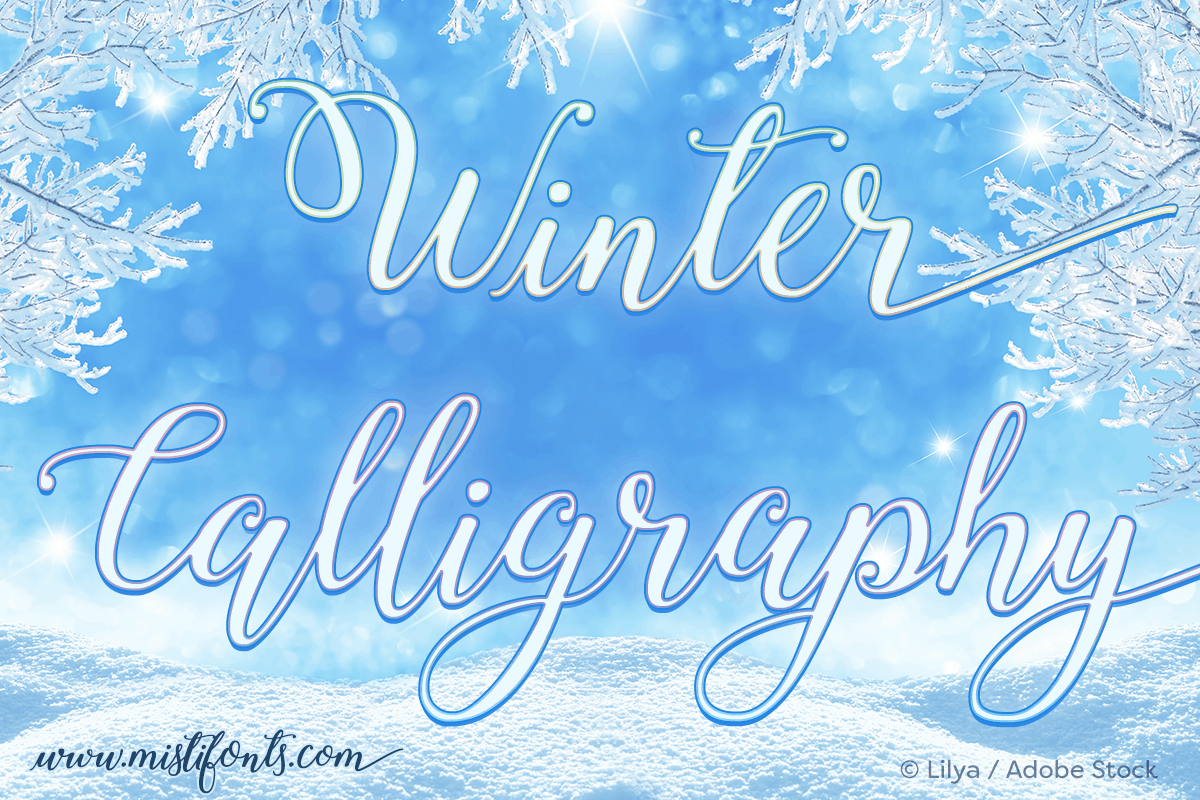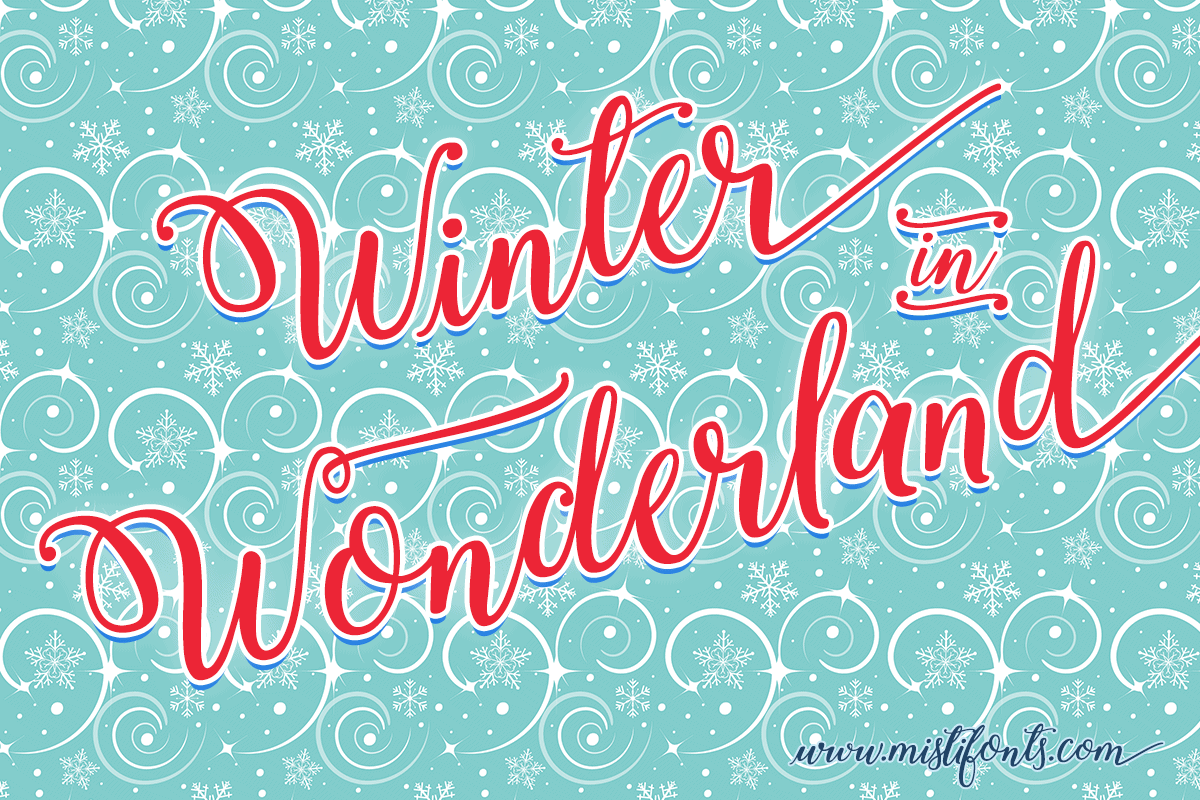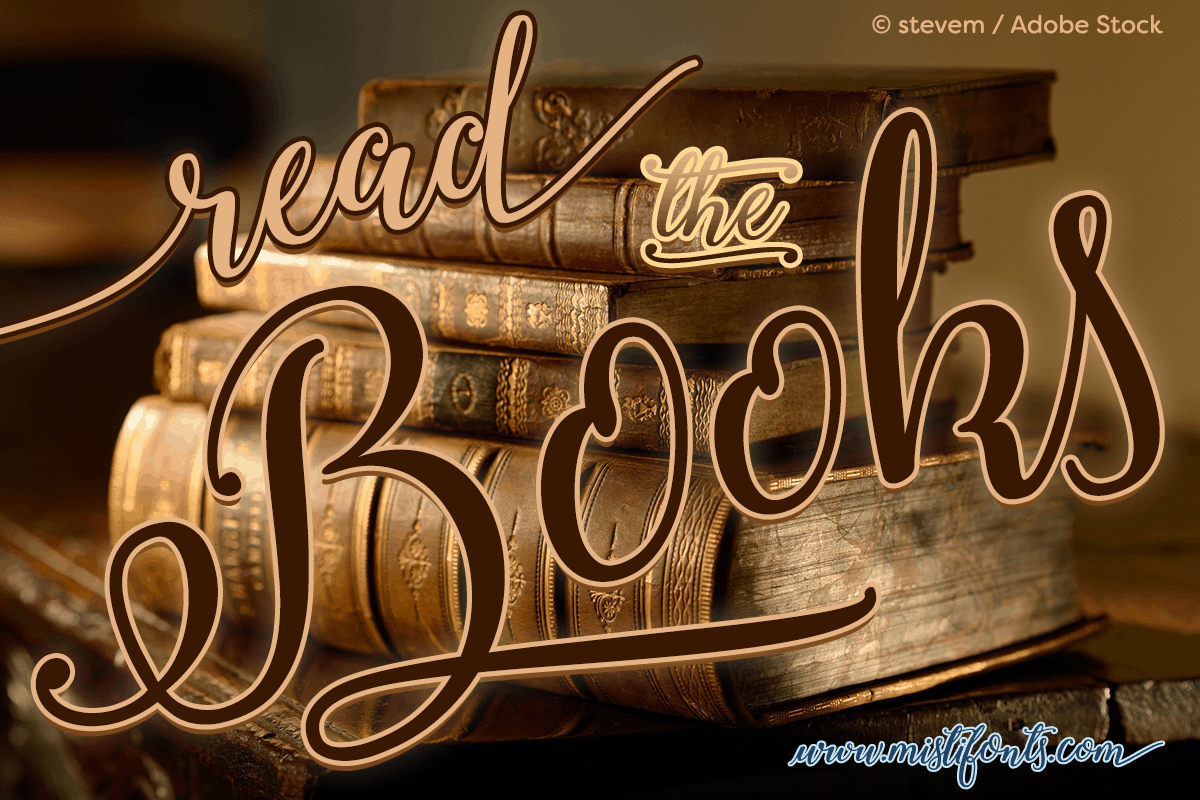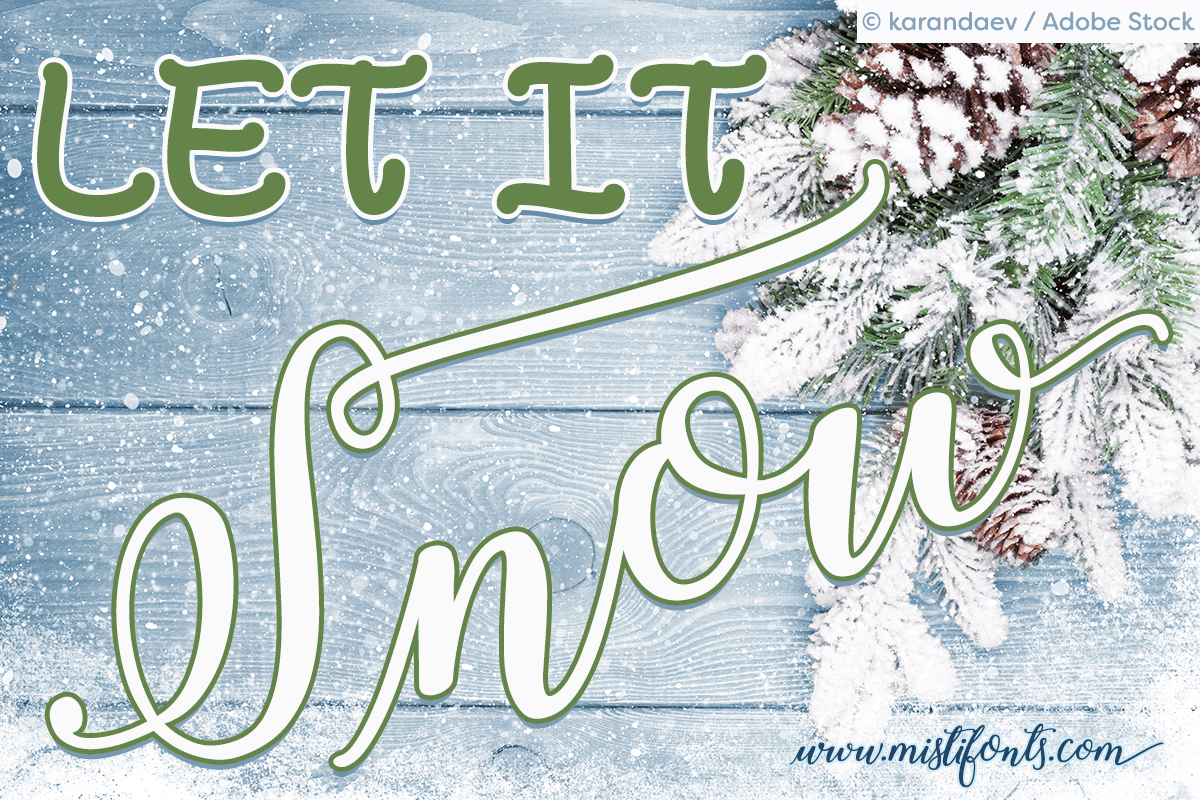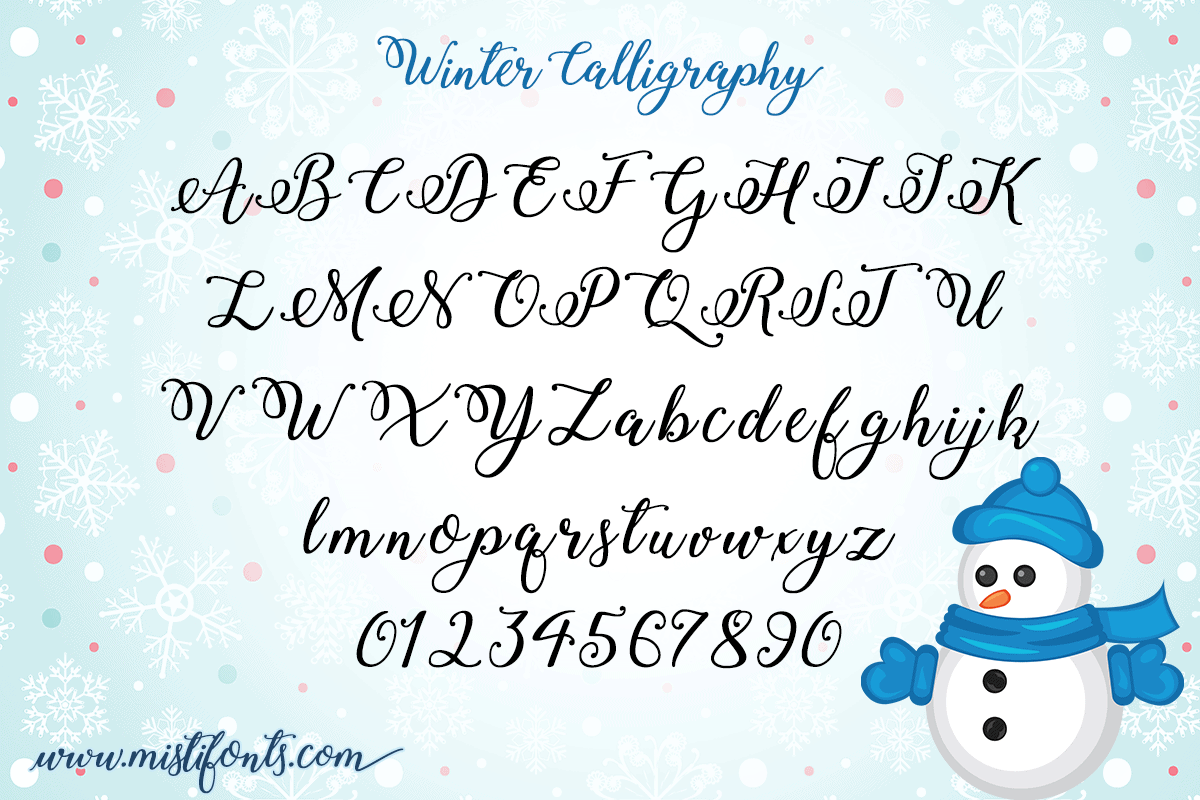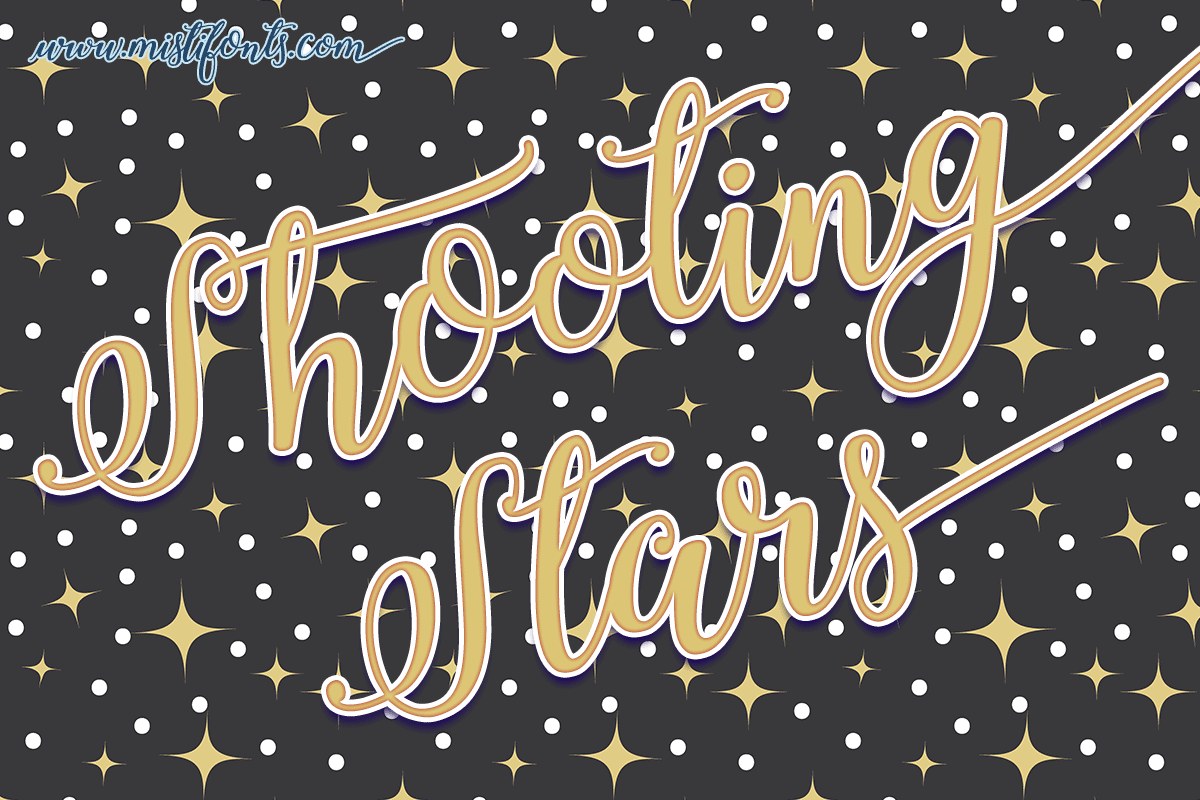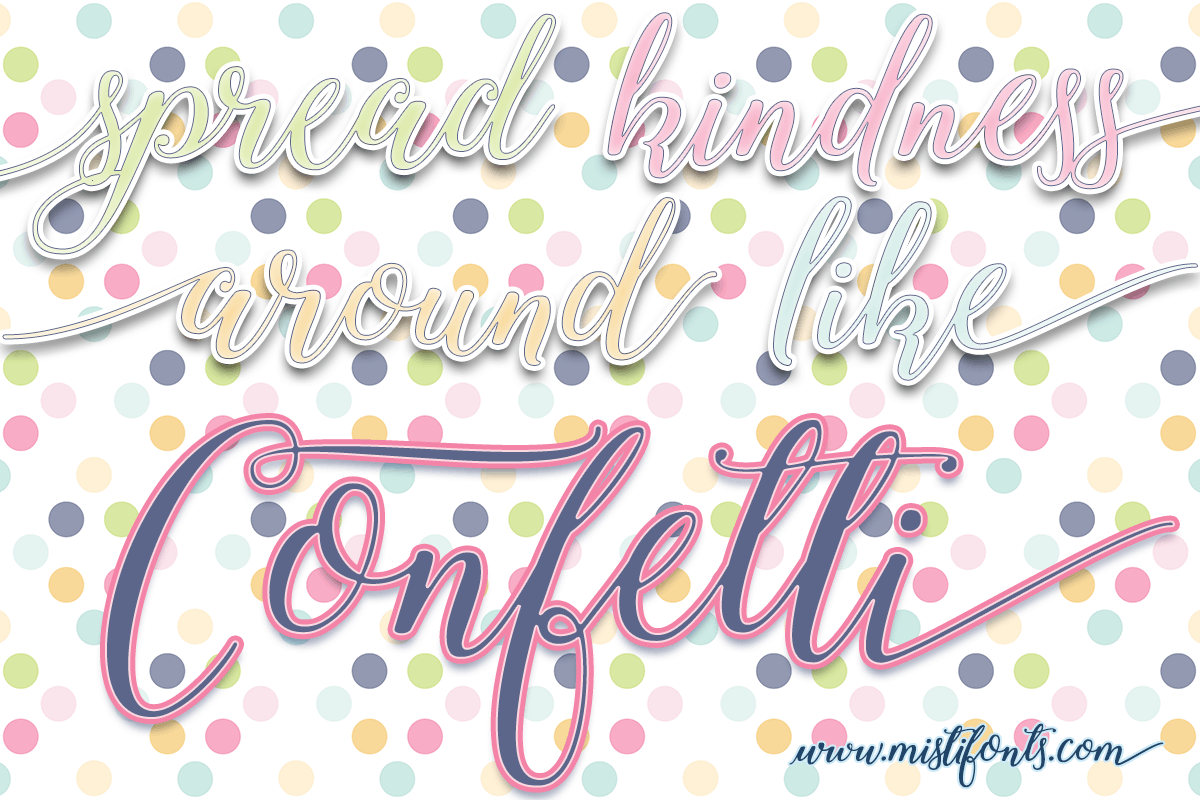
Winter Calligraphy
Winter Calligraphy Font
Winter Calligraphy is a stunning new handwritten font by Misti’s Fonts.
This font is packed with hundreds of alternates and is perfect for adding a personal touch to your projects.